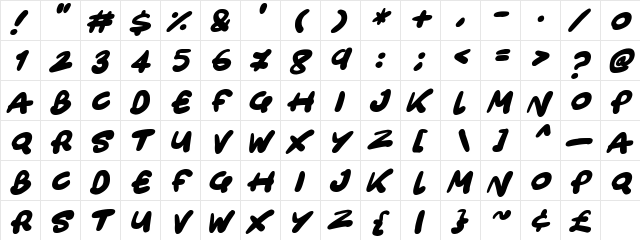
Only Organic Italic
Design Context for Only Organic Typeface
Only Organic is a composed and adaptable typeface that performs quietly and consistently across a wide range of design contexts. Its italic angle brings a sense of urgency and motion to the letterforms.
Pro Tip: Use Only Organic for emphasis, pull quotes, and subheadings where its slanted energy can add rhythm to the layout.